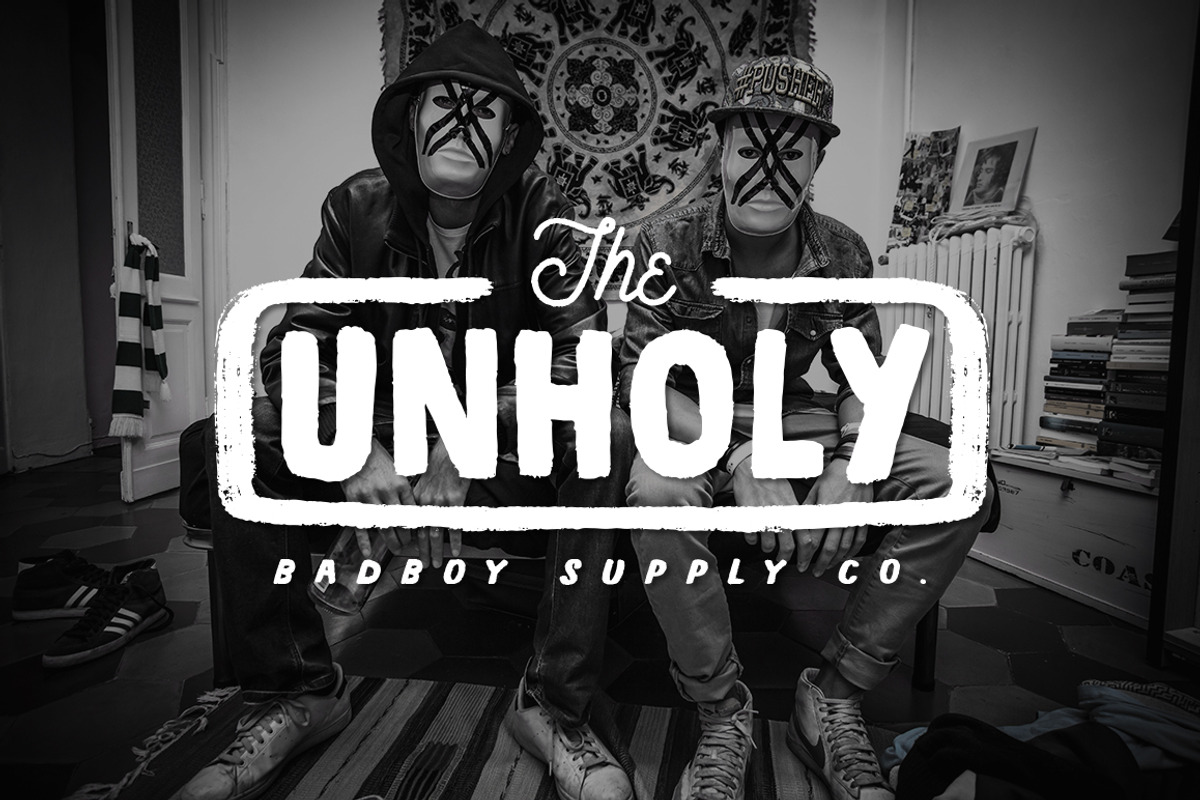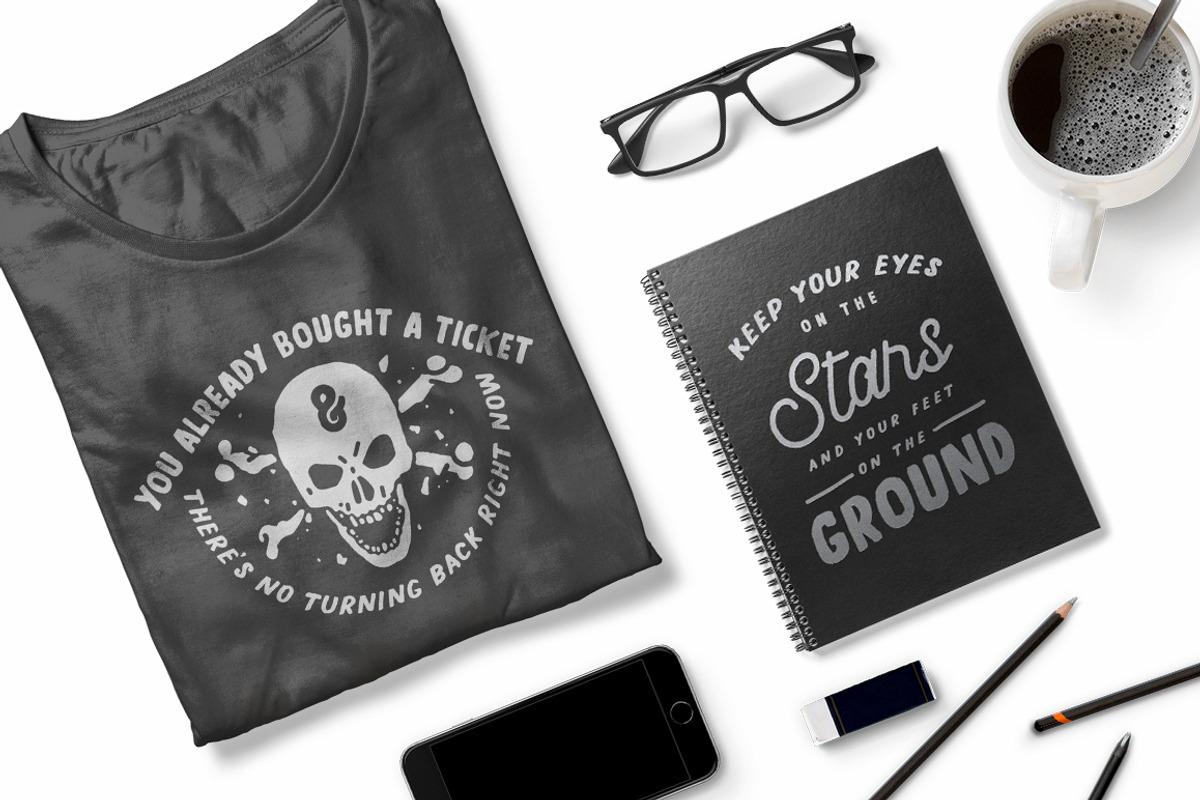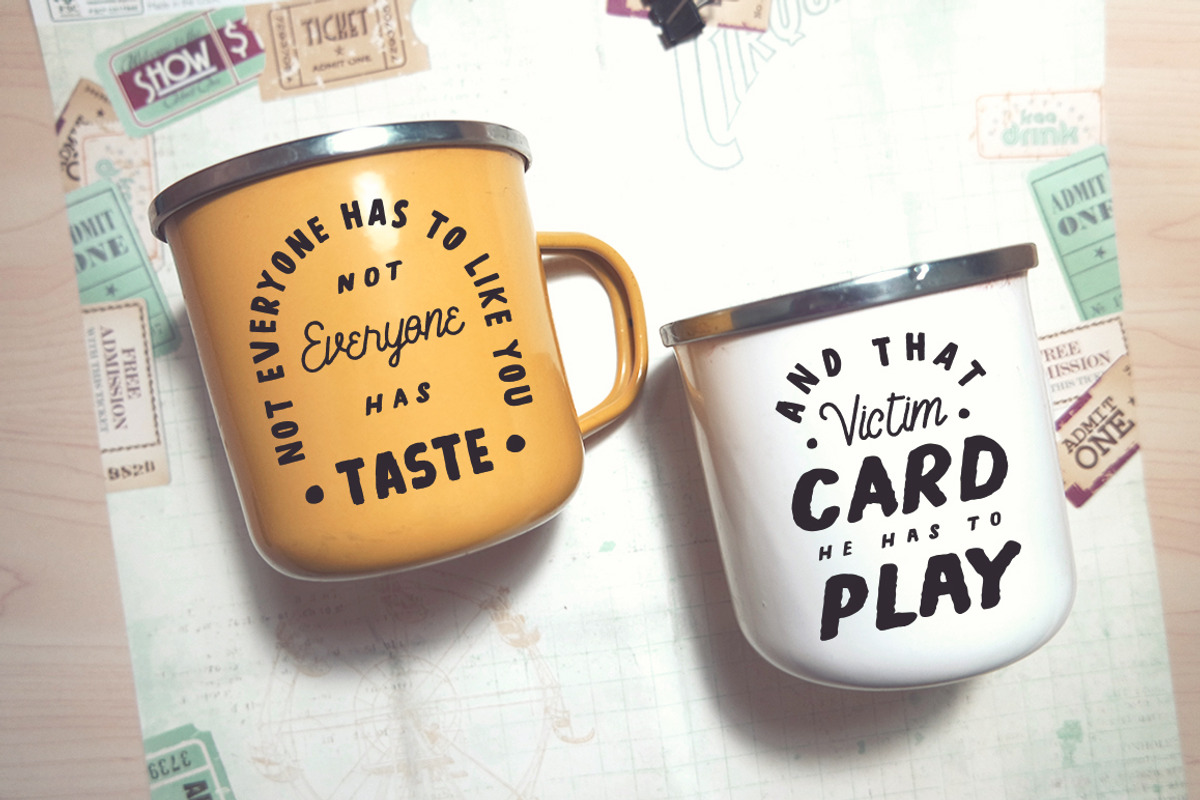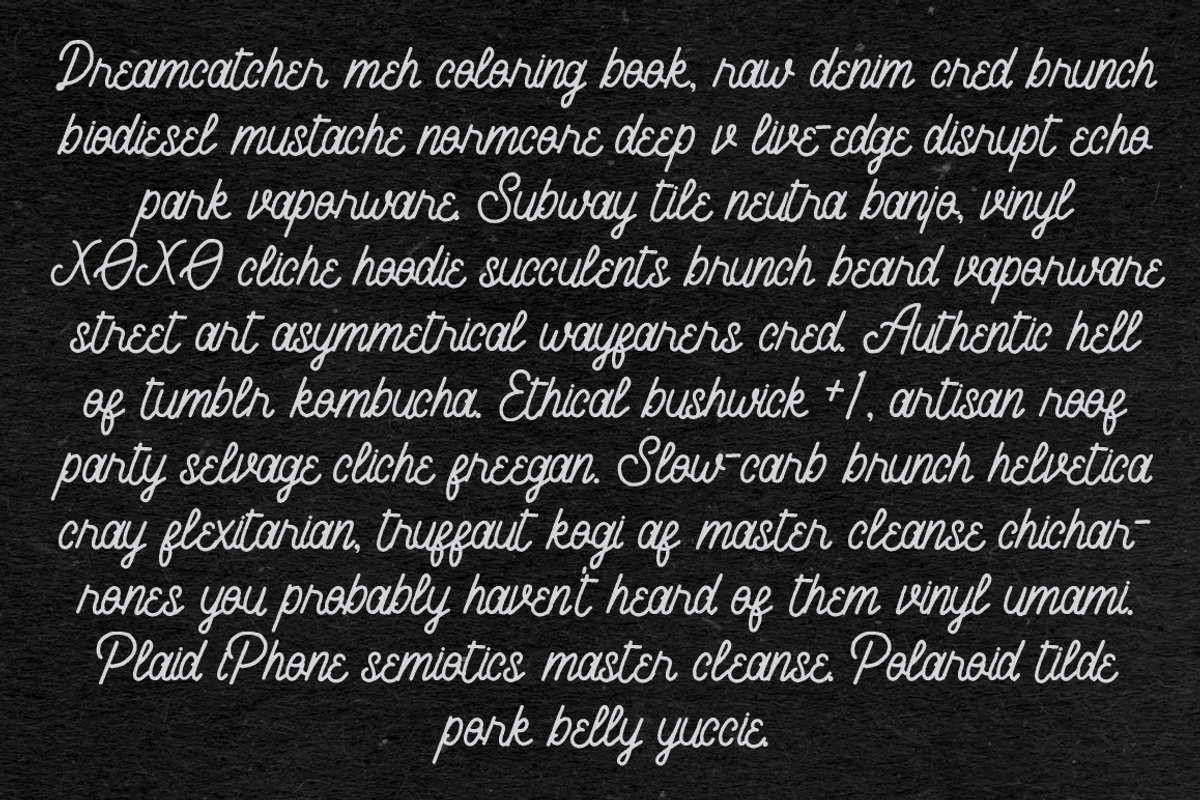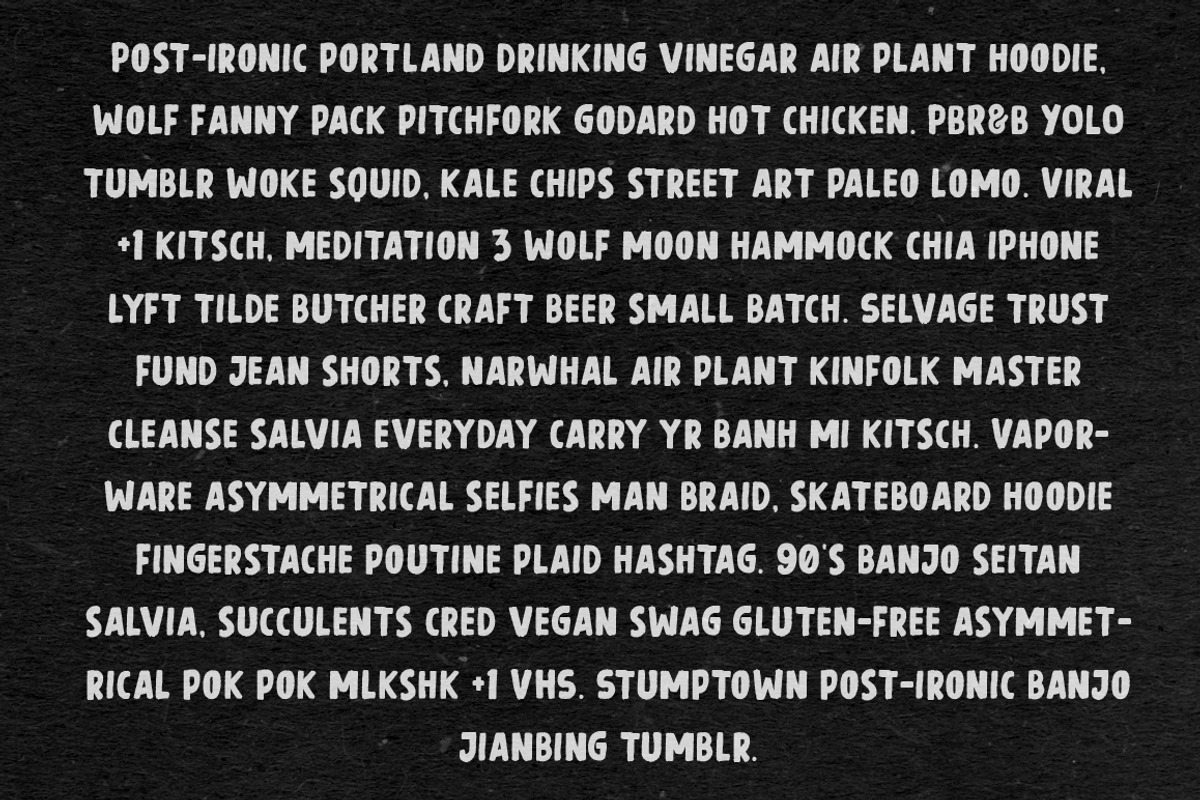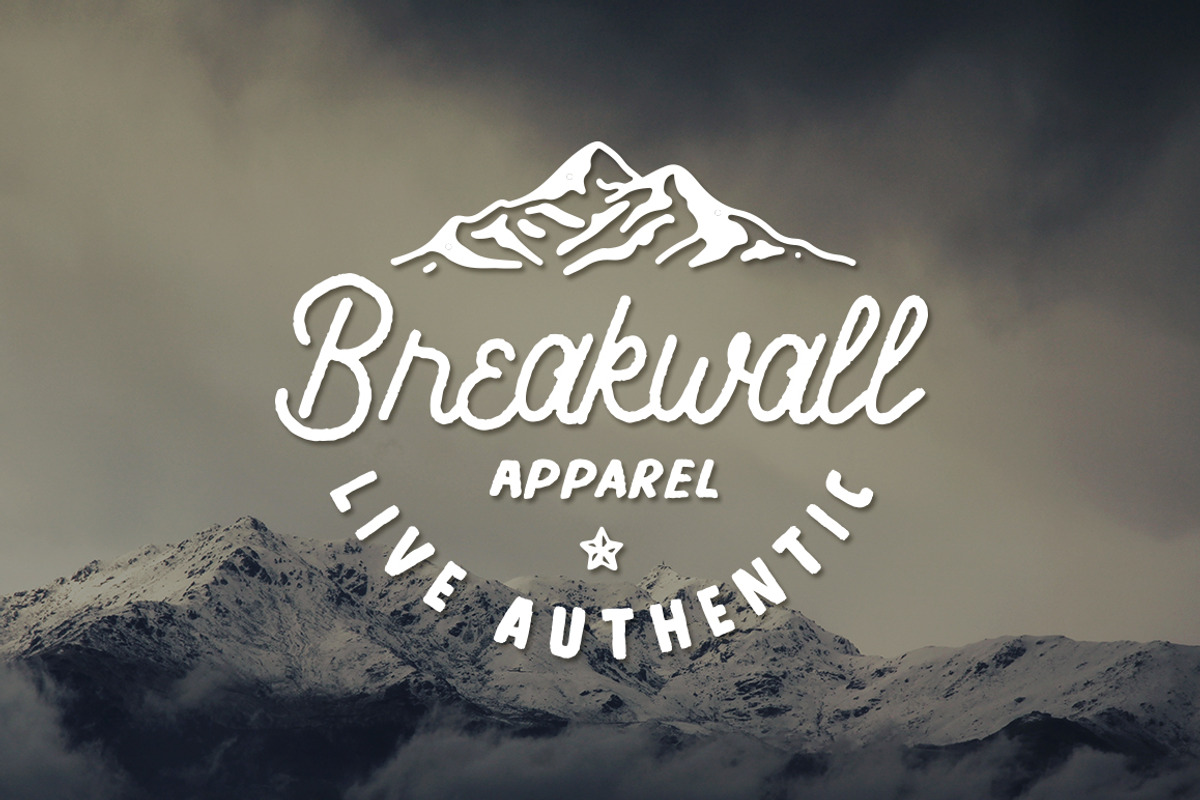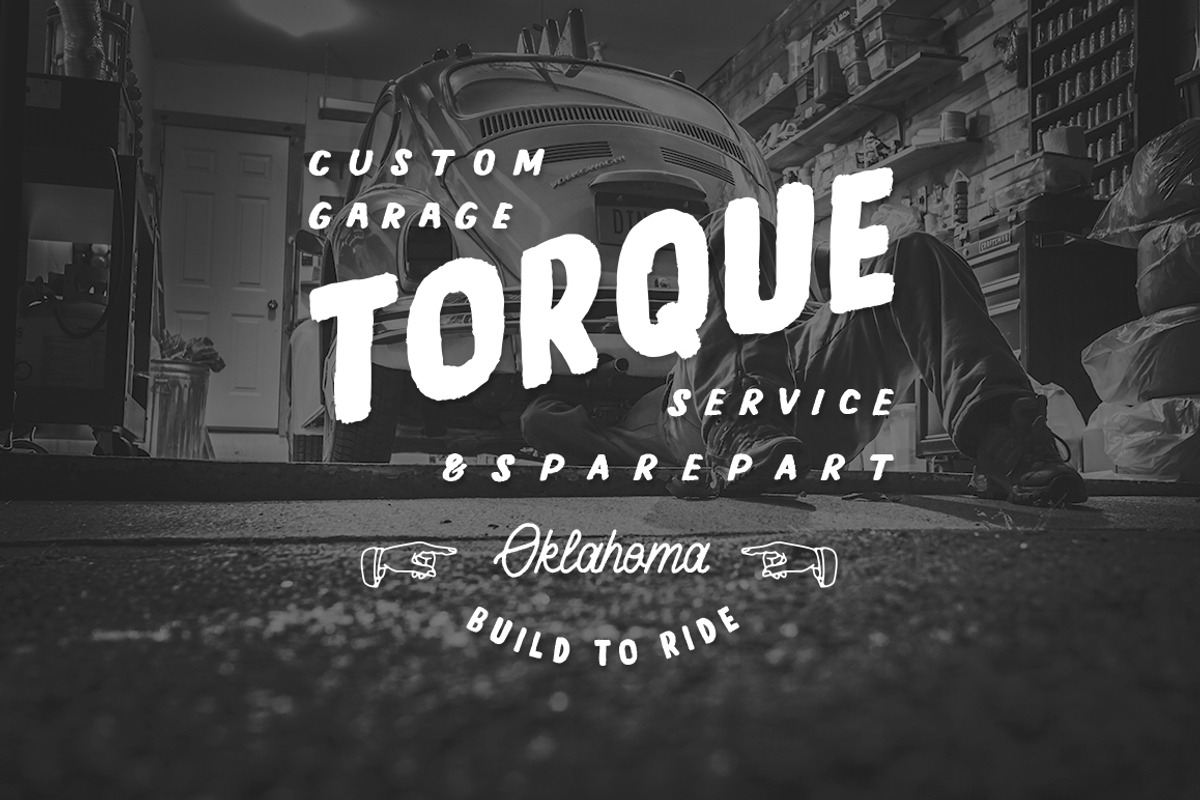
Sorry Not Sorry : 3in1 Fonts
Sorry Not Sorry : 3in1 Fonts by Basilisk Type is a font selected for branding, posters, packaging, typography.
- Boldy Beetle Regular
- Monolayn Regular
- Slant Thug Regular
Why Sorry Not Sorry : 3in1 Fonts is worth a look
Sorry Not Sorry : 3in1 Fonts by Basilisk Type fits naturally into Branding, posters, packaging, typography.